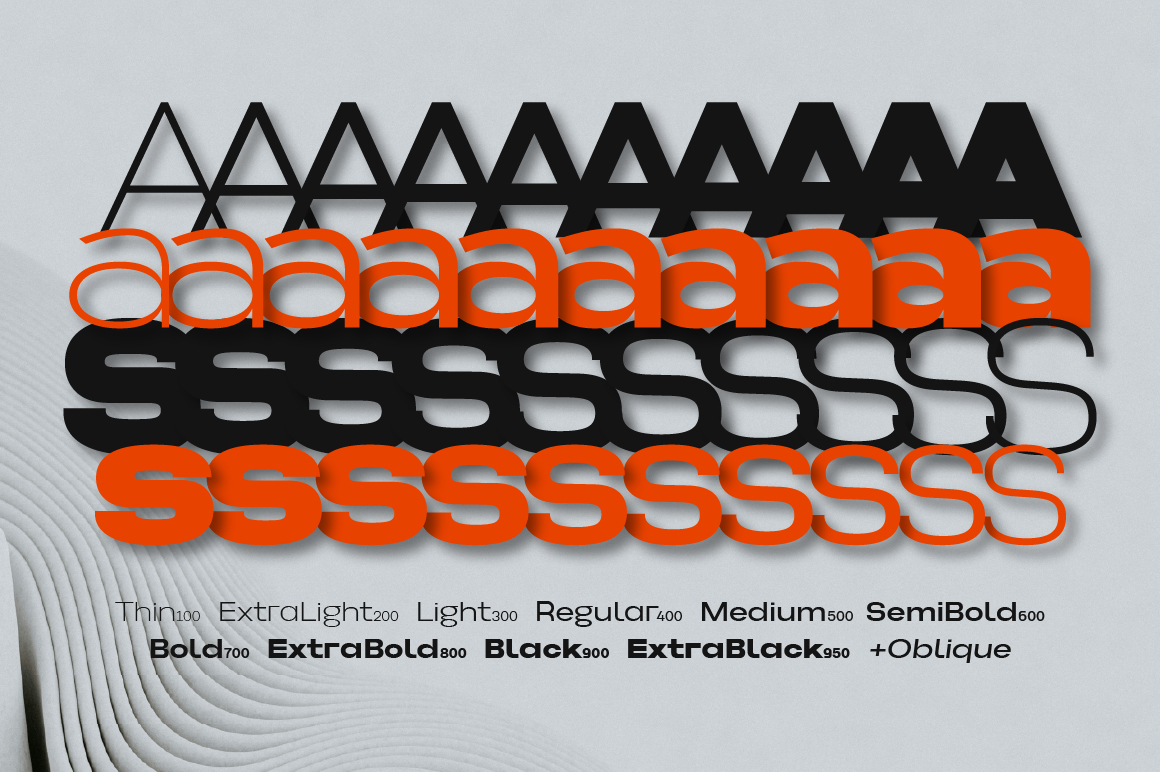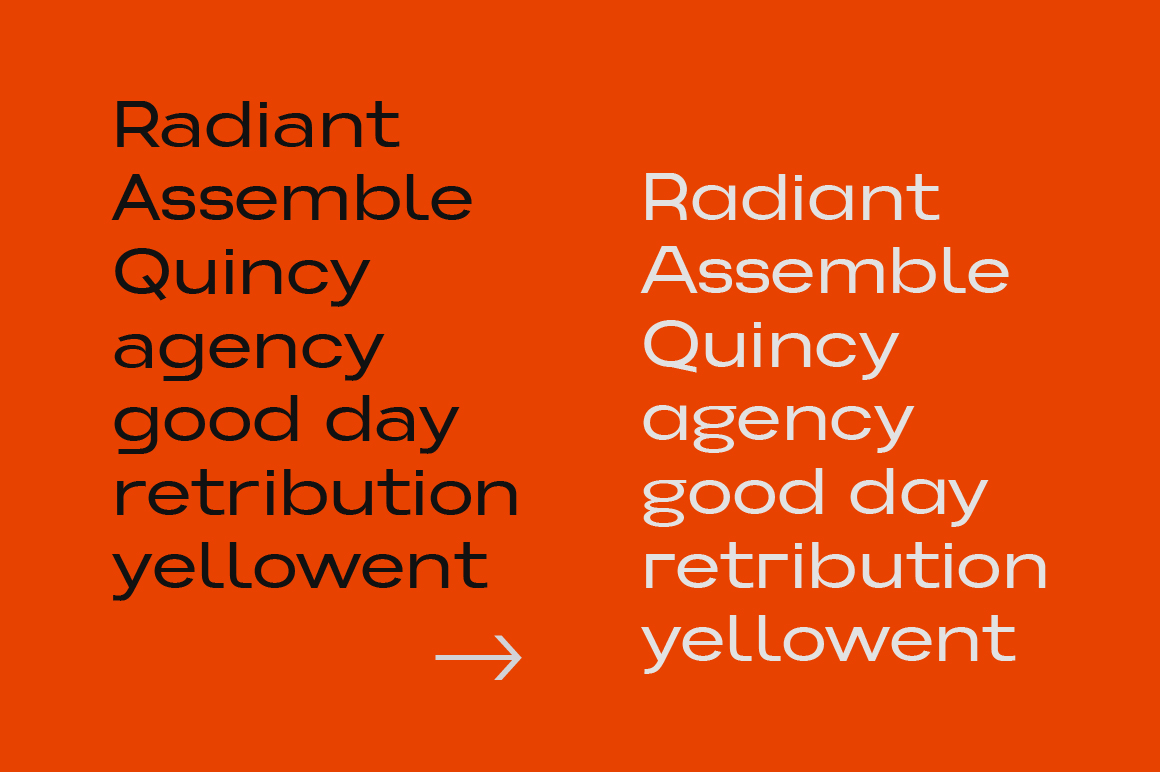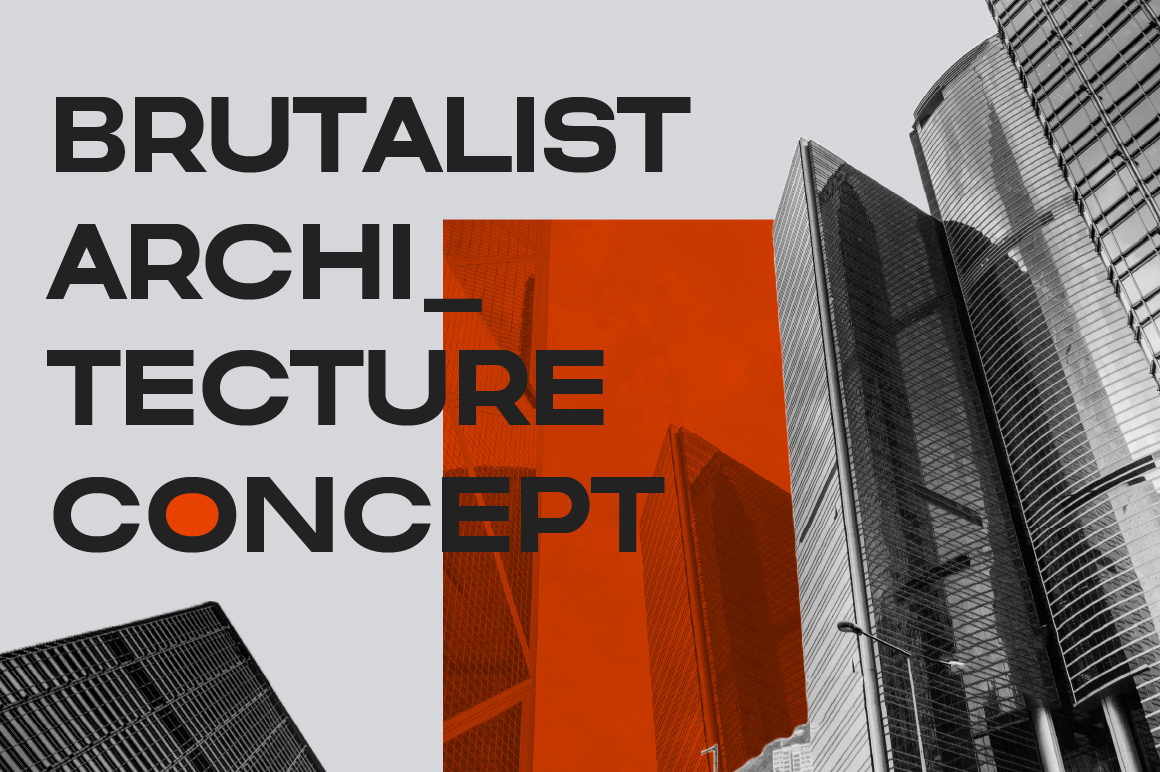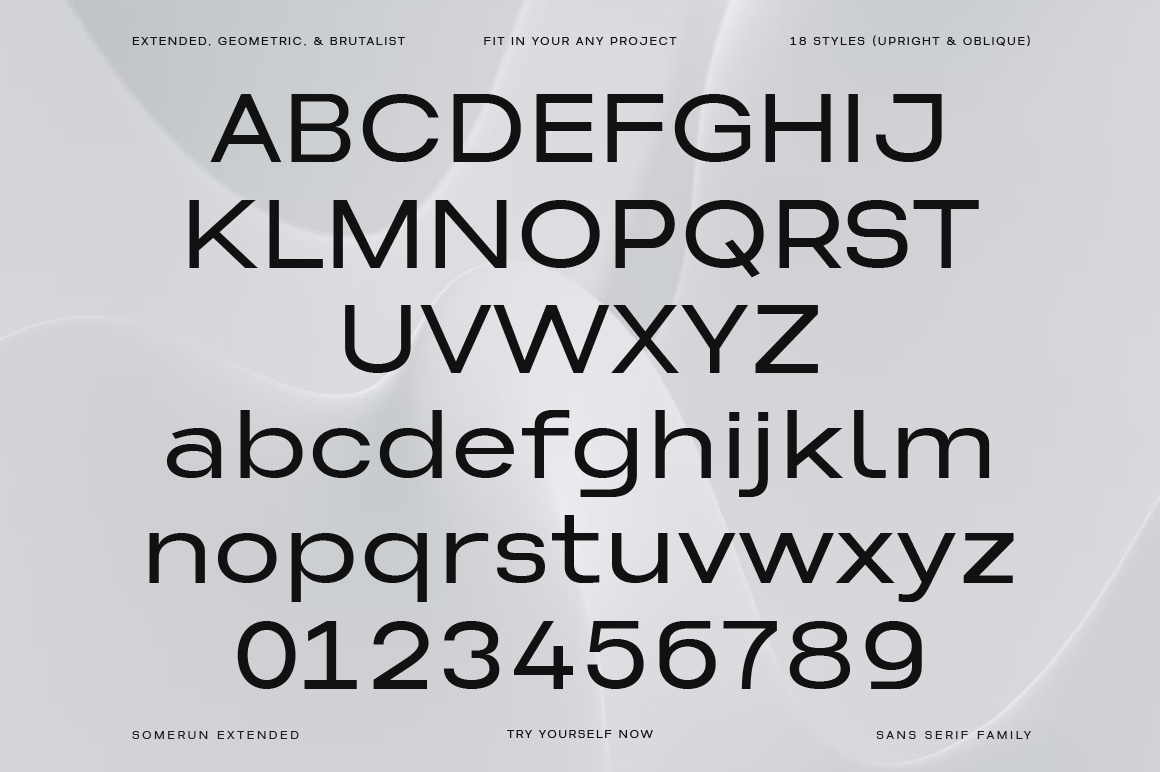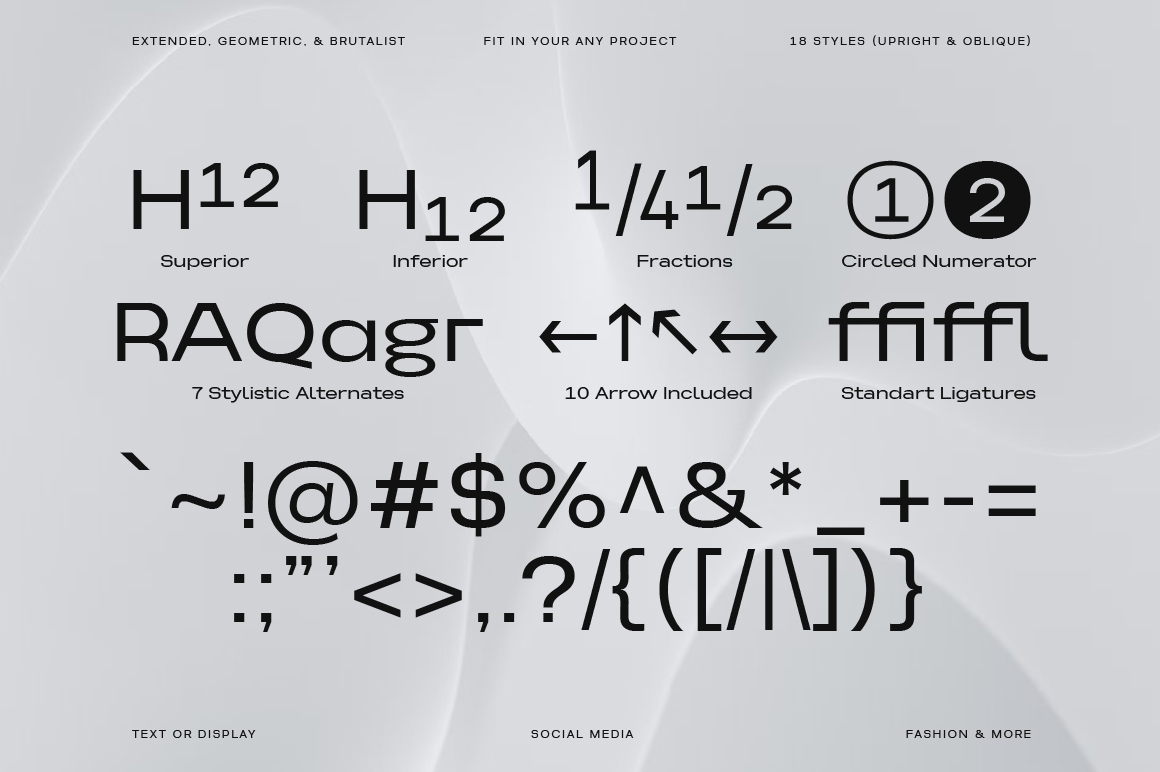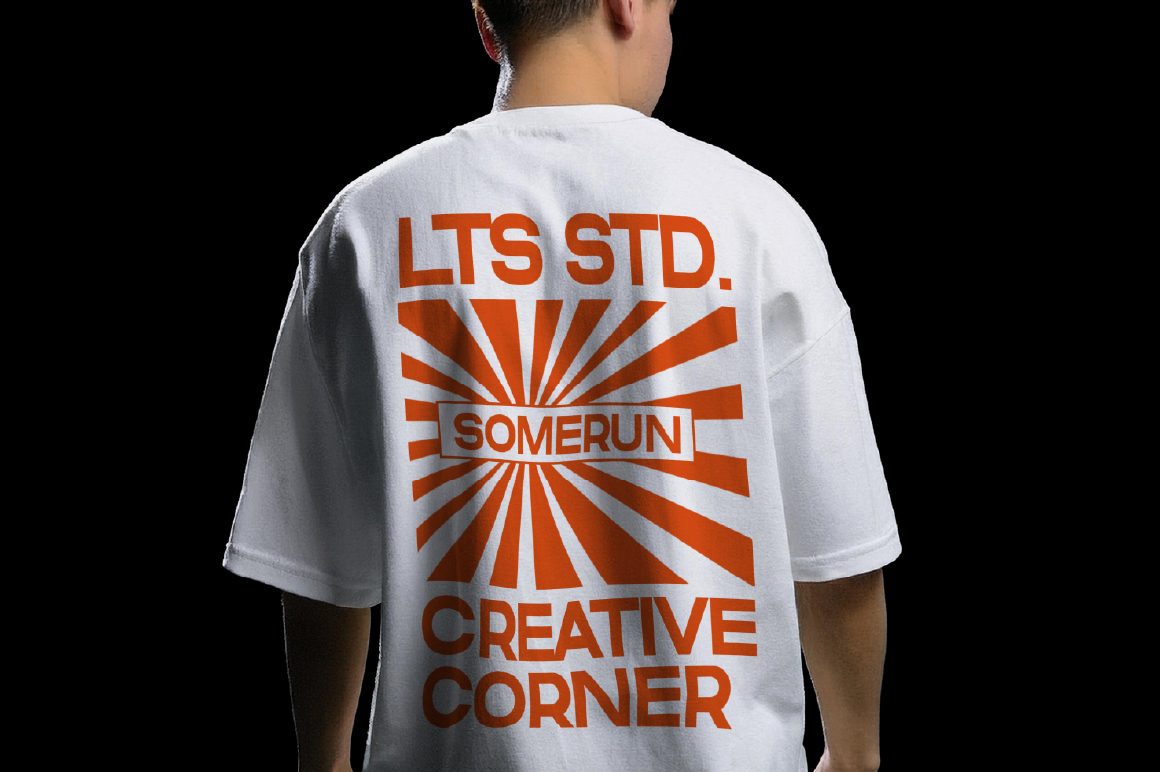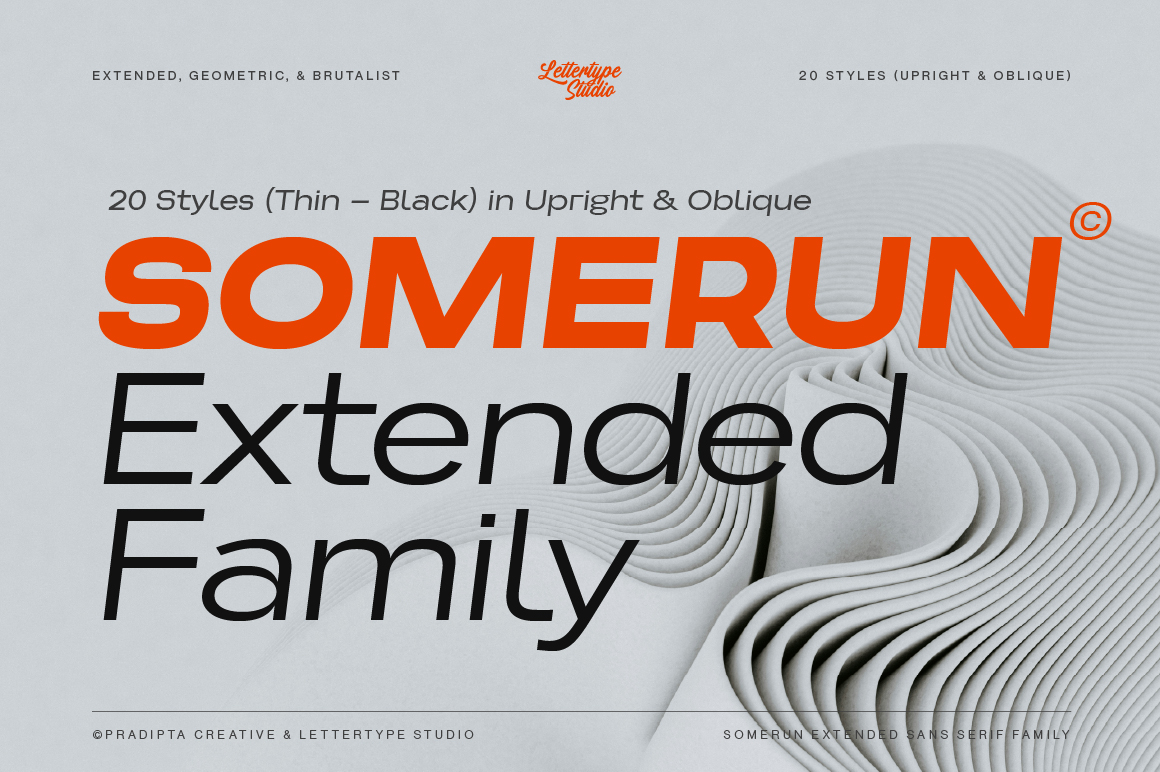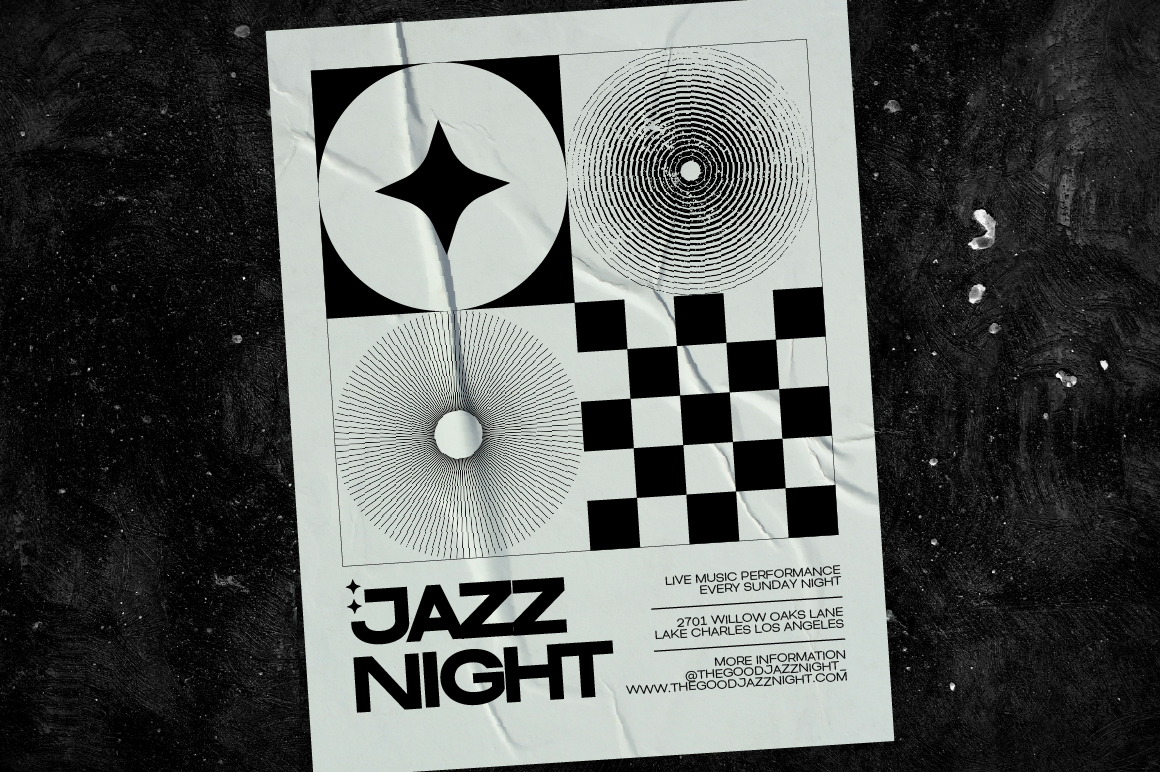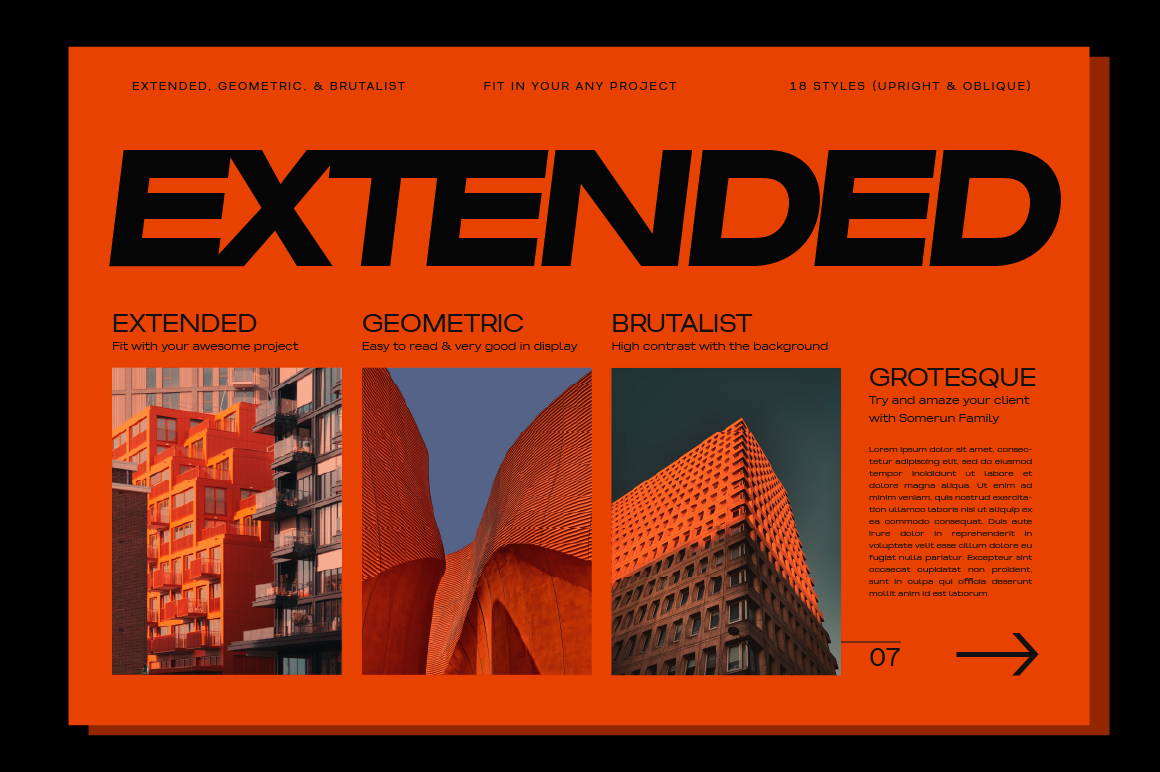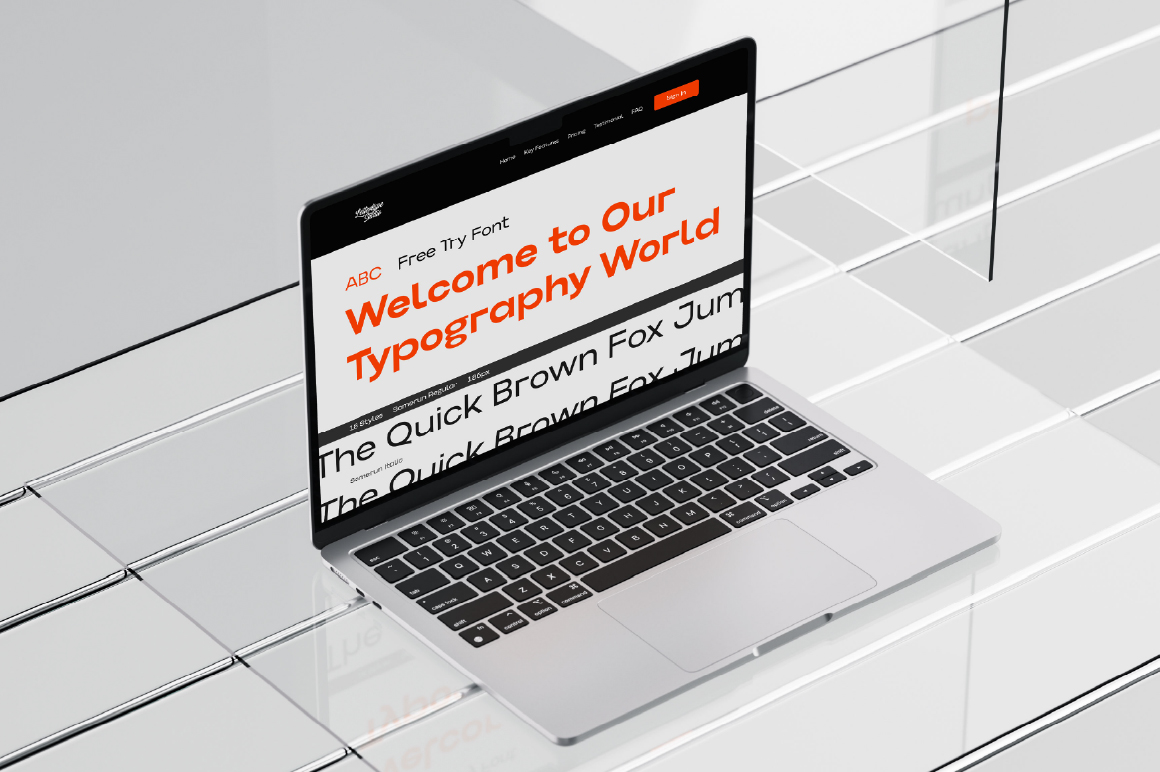
Somerun is a modern typography with our curated selection of sans serif extended fonts embody grotesque, geometric, and brutalist styles. These typefaces are meticulously crafted to deliver clarity, neutrality, and impactful visual presence, making them ideal for contemporary design projects.
There is a wide range of weights, from thin to extra black, including 20 weights and oblique style. OpenType features include 7 stylistic alternates (A, R, Q, a, g, r, & y), figure variations (superiors, inferiors, fractions, circled numerators, and standard ligatures (fi, ff, fl, ffi, & ffl), and broad Latin language support.
Somerun extended sans serif fonts are crafted with impeccable legibility and sleek, seamless, aesthetic appeal. They are clean, modern, and versatile options for any project like fashions, print design, social media, creatives, poster, signate, branding, UI/UX, web typography, packaging, or editorial design. It will elevate your creative projects and keep your designs on-trend.
Somerun Features:
• 20 Styles
• Upright & Oblique
• 497 Glyphs Total
• 270+ Languages Support
• Fashion branding, posters & editorial layouts
• Corporate identity, tech startups & digital branding
• UI/UX design, websites & product interfaces
• Packaging, signage & minimalist advertising
• Creative portfolios & geometric display typography
Somerun